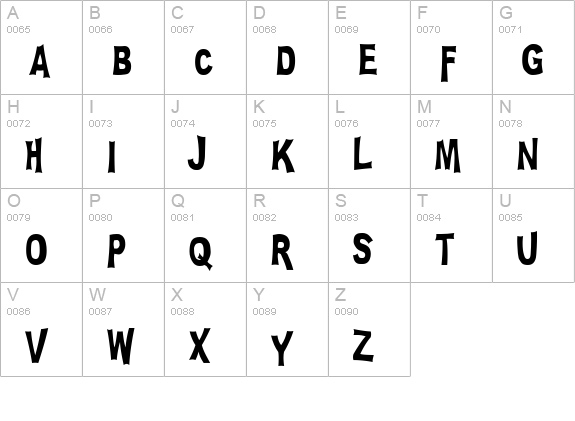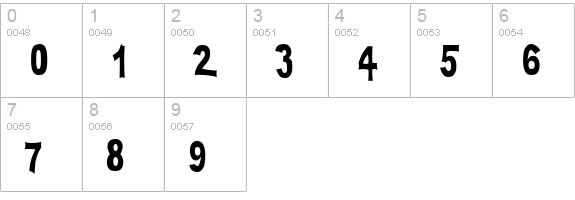
PLATSCH Font Details
The PLATSCH font is a unique and eye-catching typeface that exudes creativity and playfulness. Its whimsical and modern design makes it perfect for a wide range of projects, from branding to social media graphics to invitations. The rounded edges and bold strokes of PLATSCH give it a friendly and approachable feel, making it a great choice for designs that aim to convey a sense of fun and lightheartedness. What's more, PLATSCH is available for free download at FontsMarket.com, making it easily accessible for designers and creatives looking to add a touch of personality to their work. Whether you're working on a digital or print project, PLATSCH is sure to make a statement and captivate your audience with its charming and distinctive style. Download PLATSCH today and let your creativity shine!